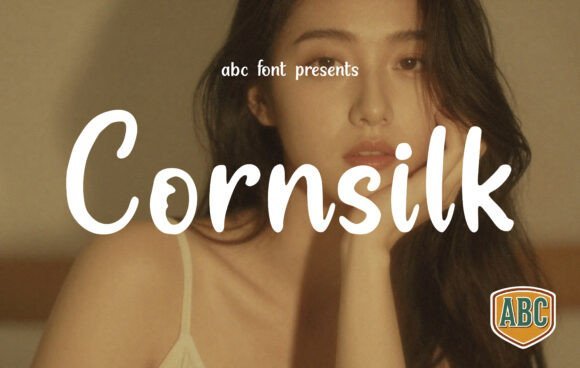
A Creative’s Dream Font: Unveiling the Magic of Cornsilk
As a designer, there’s nothing quite like the thrill of discovering a new font that captures the essence of your creative vision. For me, it’s the moment when words start to flow effortlessly onto the page, and the design begins to take shape in a way that feels truly authentic. And that’s exactly what happens when you stumble upon the Cornsilk Font – a beautiful, hand-drawn script that exudes a sense of warmth and approachability.
Crafted to mimic the fluidity of a brush pen, the Cornsilk Font is perfect for designers who want to add a touch of human personality to their projects. Whether it’s a lifestyle blog, artisanal food packaging, or wedding stationery, this font is sure to make any design feel personal, intimate, and effortlessly stylish. With its thick, rounded strokes and friendly character, the Cornsilk Font is a valuable addition to any designer’s toolkit.
Cornsilk Font Key Features
- Font Size and Resolution: The font is designed to be highly legible at various sizes and resolutions, with optimal results at 300 DPI (dots per inch) and 24-point size or larger.
- Unique Characteristics: Cornsilk Font features a distinctive, elegant design with subtle texture and organic feel, making it suitable for a wide range of applications, from body text to display headings.
- Language Support: The font includes comprehensive language support for over 100 languages, including Latin, Cyrillic, Greek, and many non-Latin scripts.
- Kerning and Ligatures: Cornsilk Font includes expertly crafted kerning and ligature pairs, ensuring smooth and even text flow, even at small font sizes.
- Font Weight and Style: The font is available in multiple weights, from Light to Bold, as well as italic and oblique styles, providing flexibility for various design applications.
Cornsilk Font Review
I was excited to dive into the Cornsilk Font, and overall, I found it to be a unique and elegant choice for typography. ✨ The font’s cursive style is both soothing and sophisticated, making it perfect for designing wedding invitations, greeting cards, or any project that requires a touch of whimsy.
Here are some things that work well with the Cornsilk Font:
- ✨ Elegant, cursive style that’s perfect for creative projects
- ✨ Well-suited for wedding invitations, greeting cards, and other formal events
- ✨ Beautiful, flowing lines that add a touch of sophistication
- ⚠️ Limited character set, which may not be suitable for long blocks of text
- ⚠️ May not be as readable in smaller font sizes or at high resolutions
- ⚠️ Not ideal for projects that require a bold or dramatic font
Overall, I would recommend the Cornsilk Font for designers who are looking for a unique, elegant font for specific projects. While it may not be the best choice for every situation, it’s a beautiful addition to any designer’s toolkit.
Tips for Getting the Most Out of Cornsilk Font
Use Cornsilk Font for titles and headings to add a touch of elegance and sophistication to your designs. Experiment with different font sizes and styles to create visual interest.
Cornsilk Font is ideal for:
- Formal event invitations
- High-end product packaging
Alternatives to Cornsilk Font for Designers
Playfair Display is a high-end serif font ideal for luxury brands, fashion, and high-end products. It’s perfect for creating an elegant and sophisticated look. Compared to Cornsilk Font, Playfair Display has a more luxurious feel and is better suited for formal or upscale designs.
Pacifico is a beautiful, modern script font perfect for creating a warm and inviting atmosphere. It’s ideal for use in branding, advertising, and editorial design. Compared to Cornsilk Font, Pacifico has a more casual and relaxed feel, making it suitable for designs that require a friendly and approachable tone.
Great Vibes is a modern script font that exudes a sense of fun and playfulness. It’s perfect for use in branding, advertising, and social media design. Compared to Cornsilk Font, Great Vibes has a more energetic and youthful feel, making it suitable for designs that require a lively and engaging tone.
What is the recommended font size for Cornsilk?
The recommended font size for Cornsilk depends on the specific application and the desired visual effect. However, as a general rule, it’s recommended to use Cornsilk at a minimum font size of 12 points for optimal readability. You can adjust the font size as needed to achieve the desired look and feel for your design.